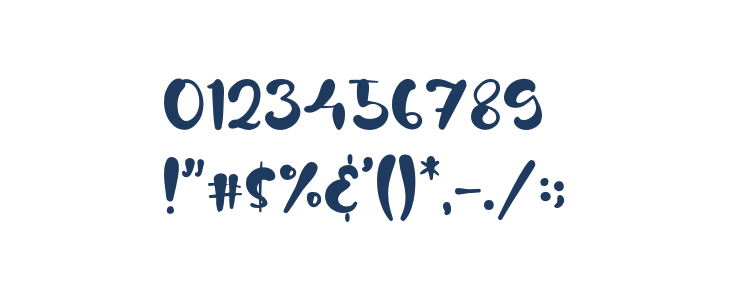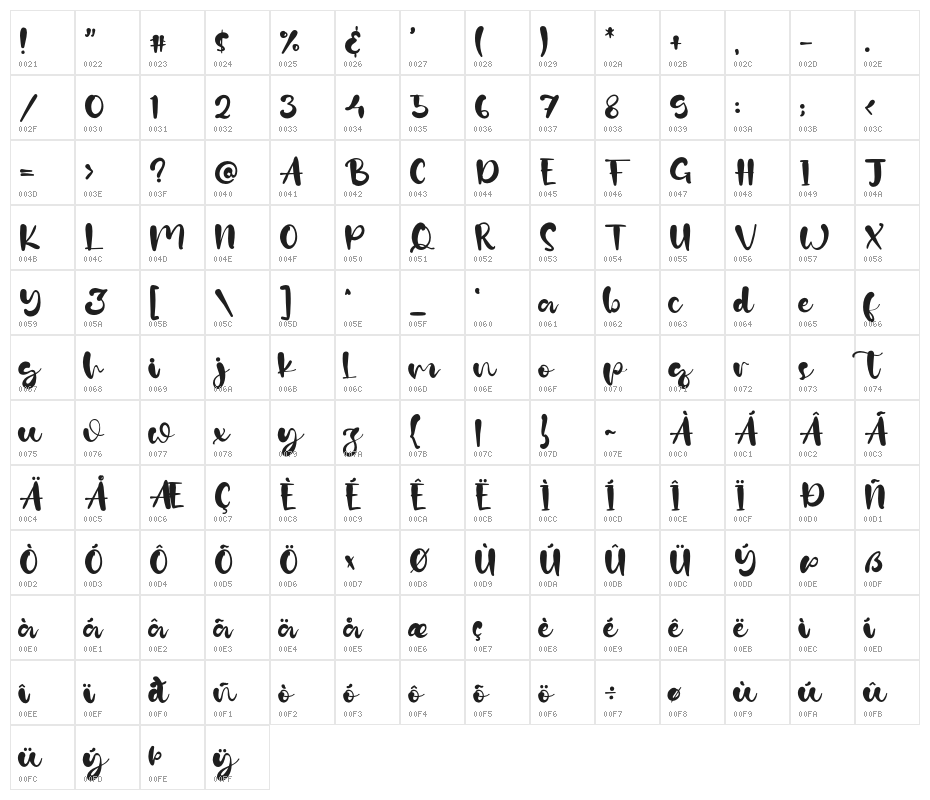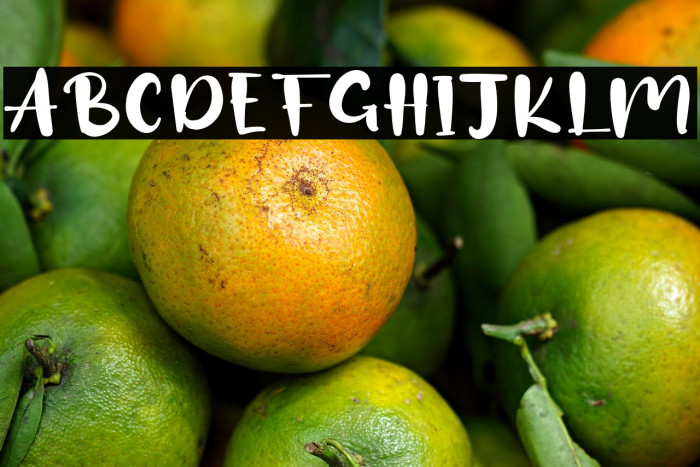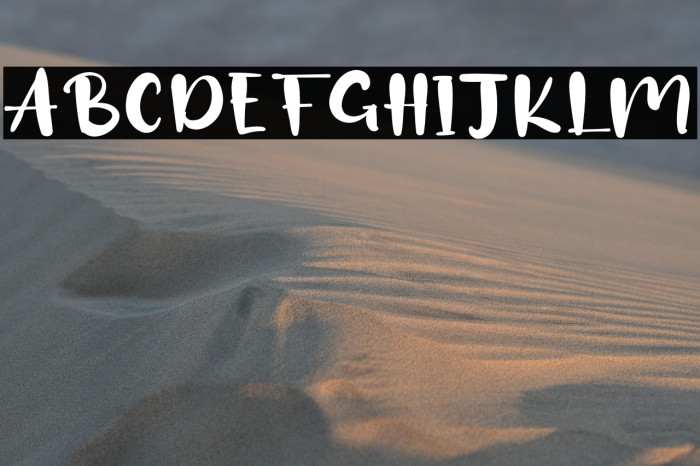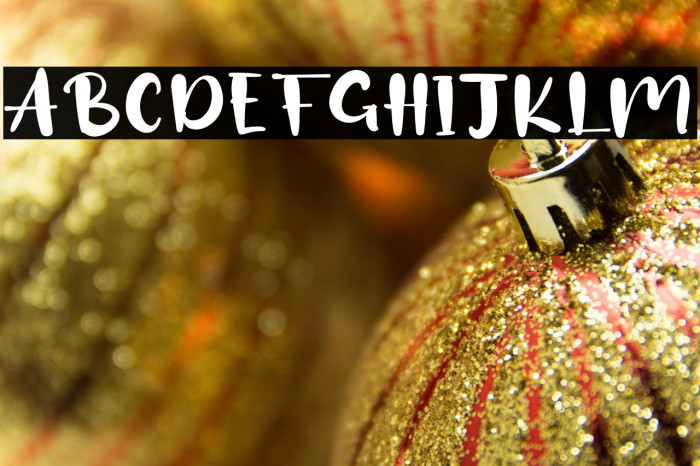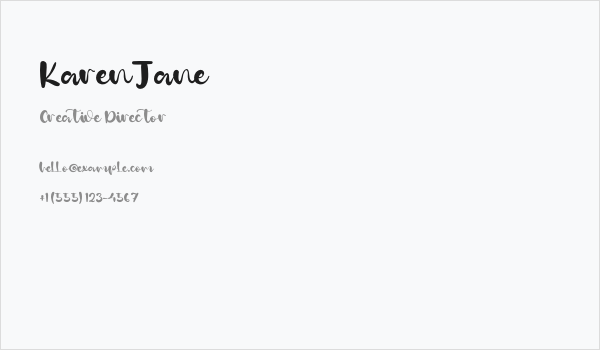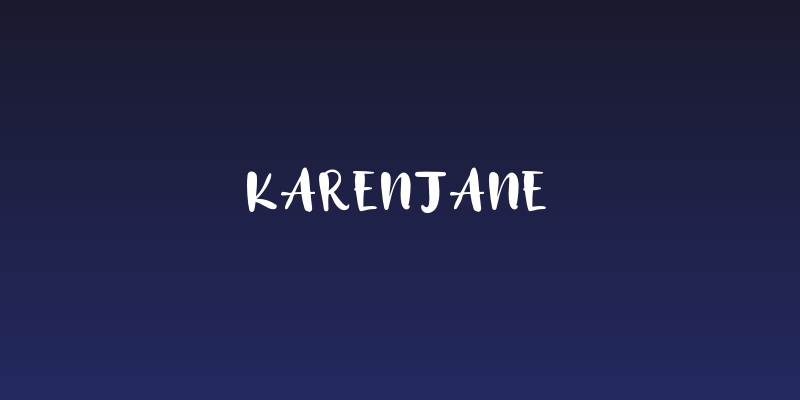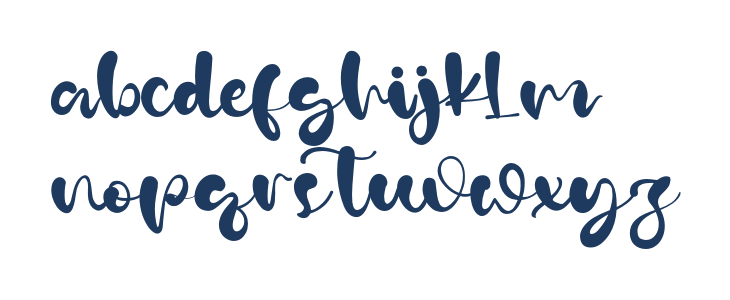
KarenJane Font
KarenJane Description
This font features a playful and bold script style with a handwritten feel. The letters are characterized by their thick strokes and smooth curves, giving them a lively and dynamic appearance. The uppercase letters maintain a consistent height, while the lowercase letters exhibit a charming irregularity that enhances the font's whimsical nature. The numbers and special characters are equally bold, ensuring readability and visual impact. This font's overall design is both modern and approachable, making it suitable for a variety of creative applications.